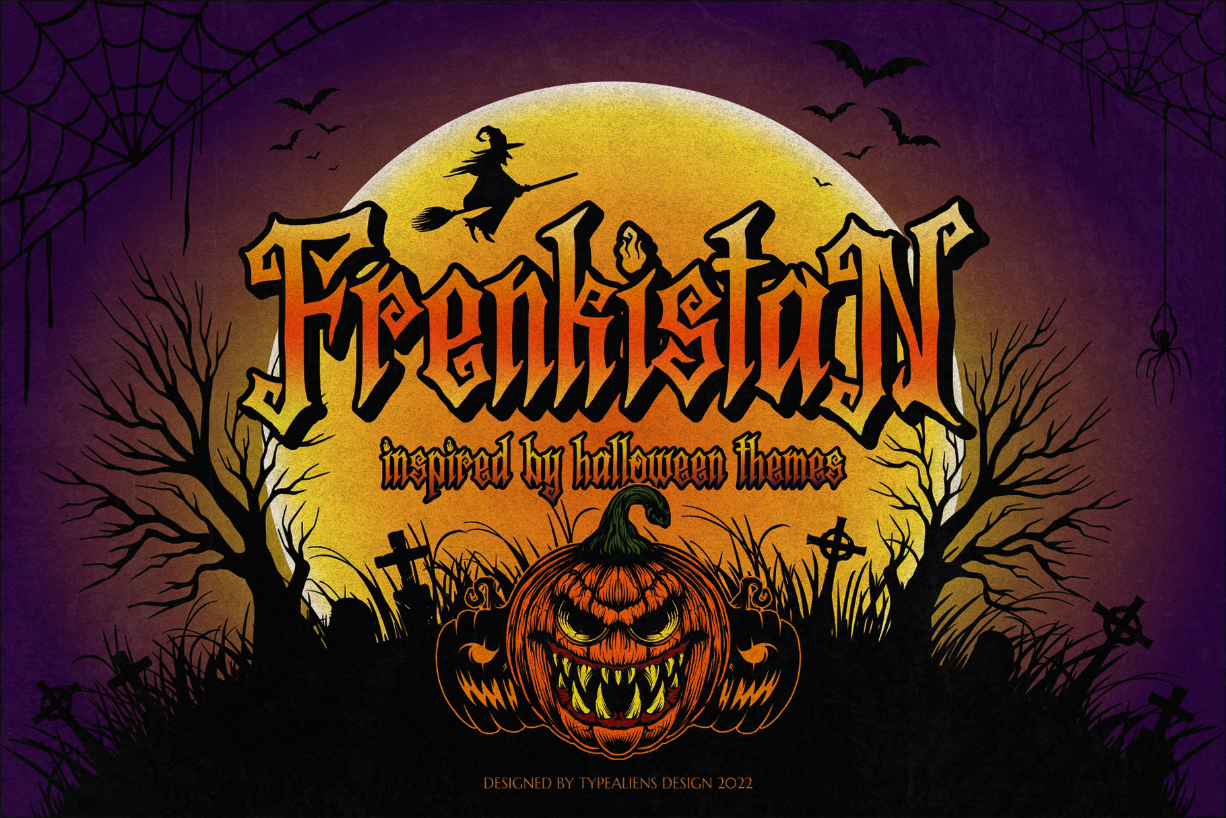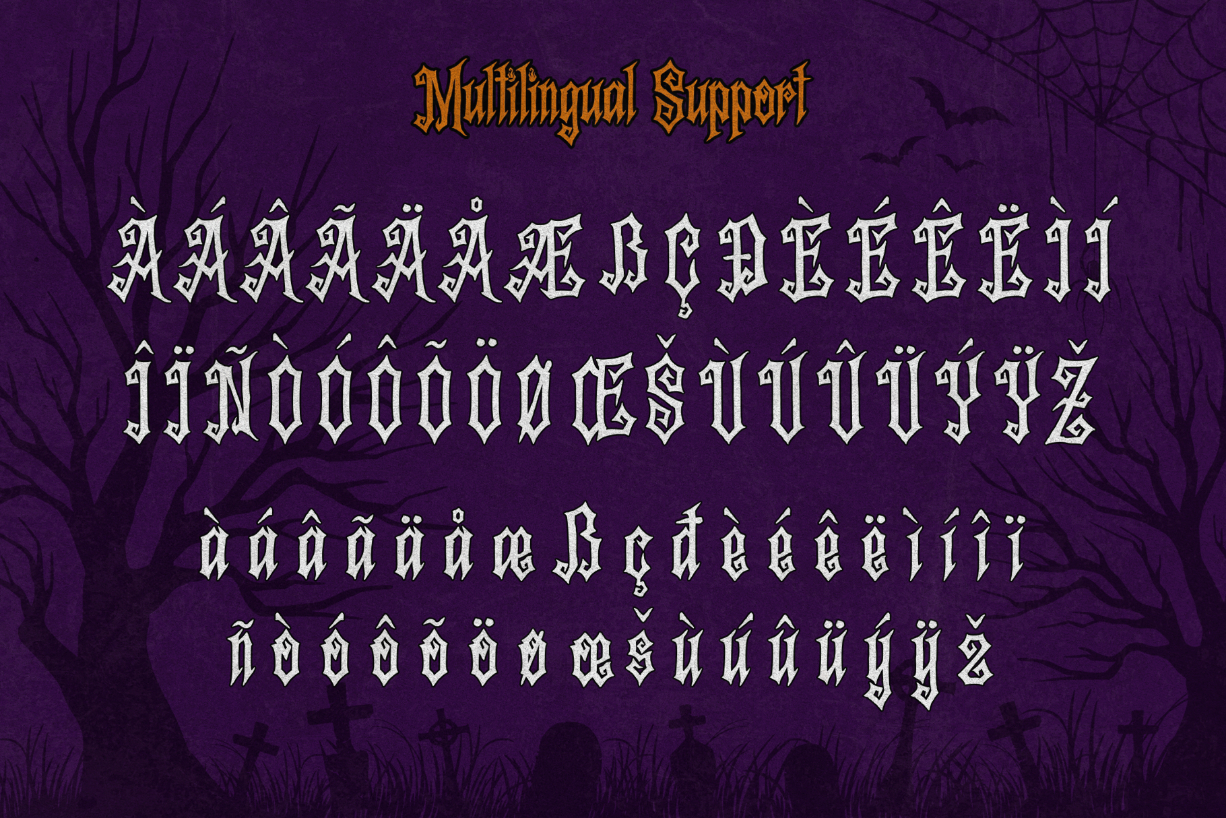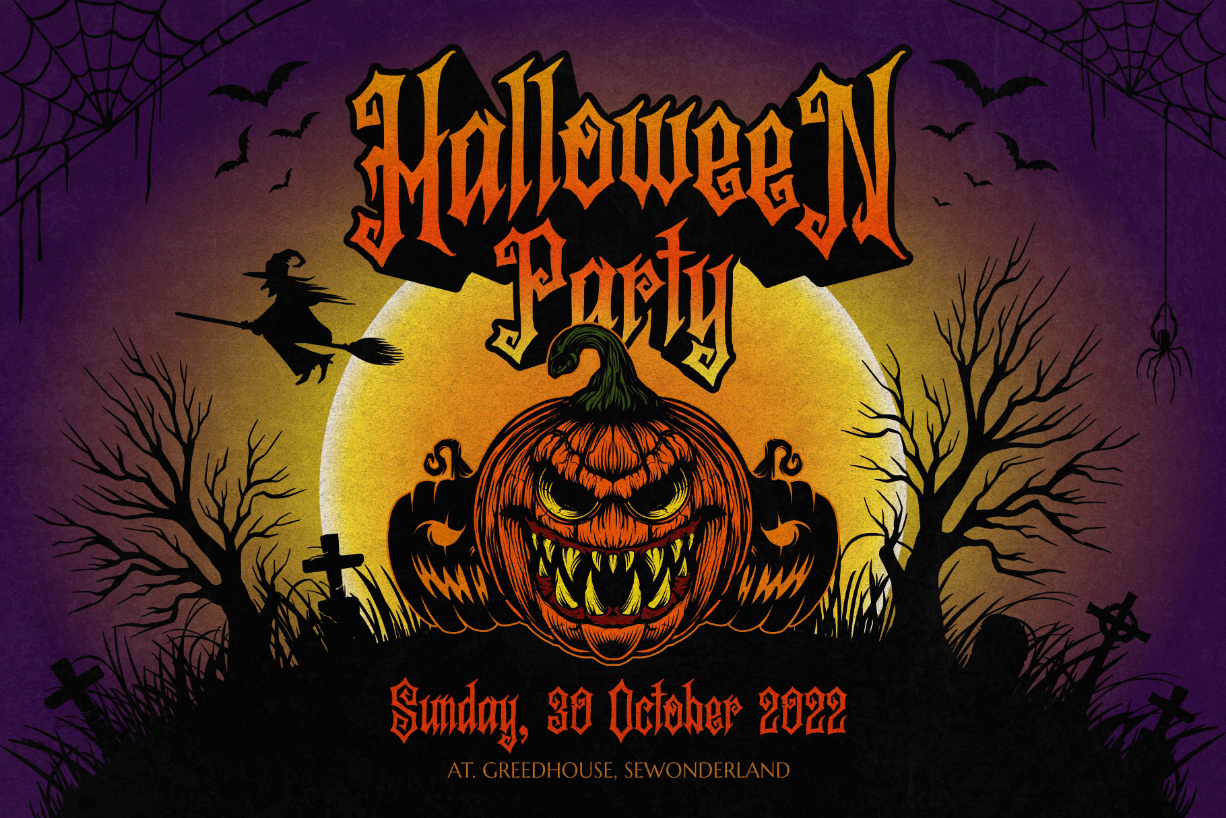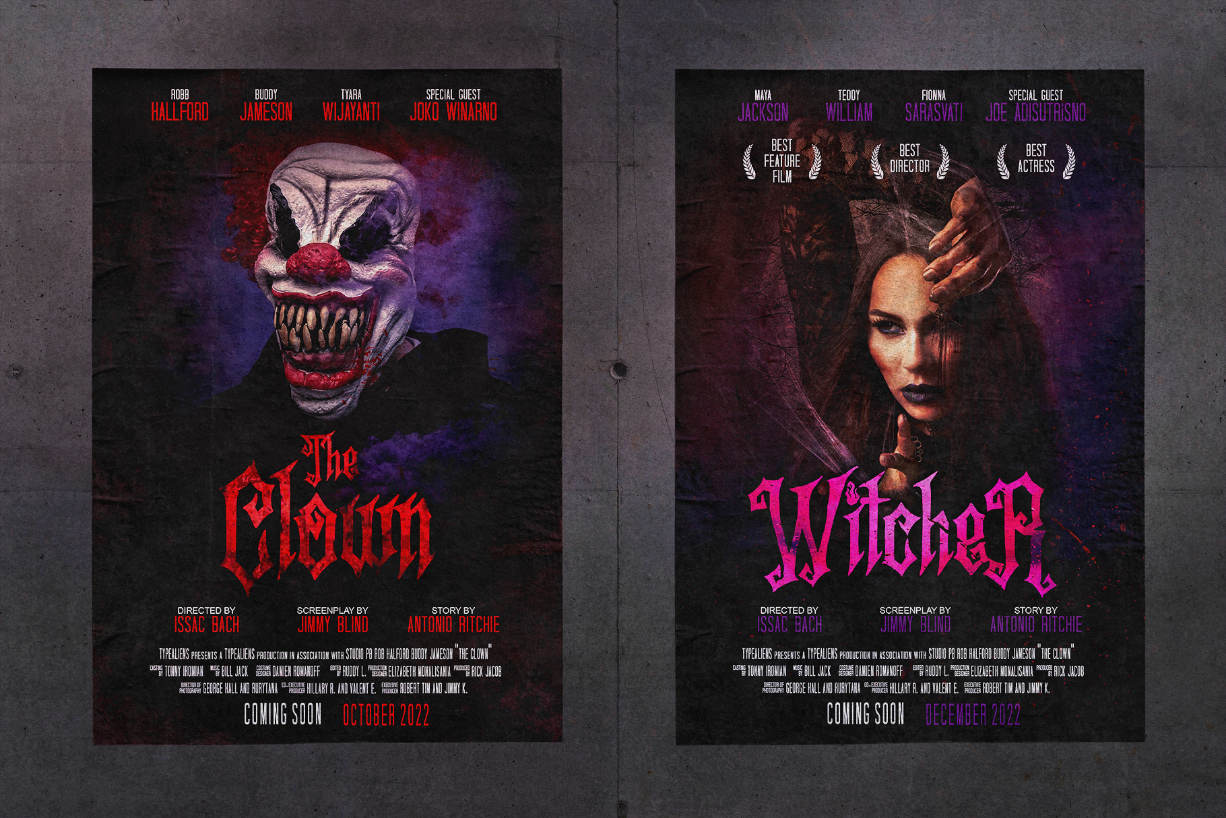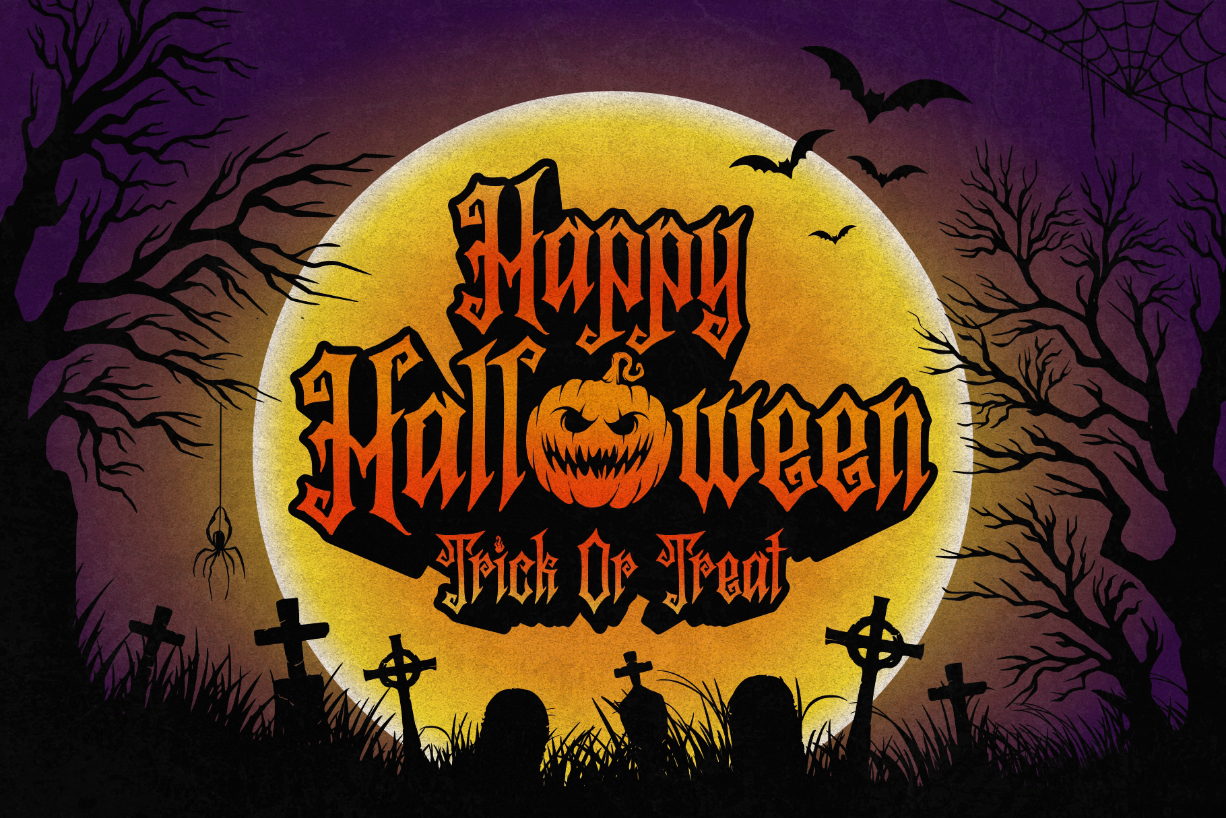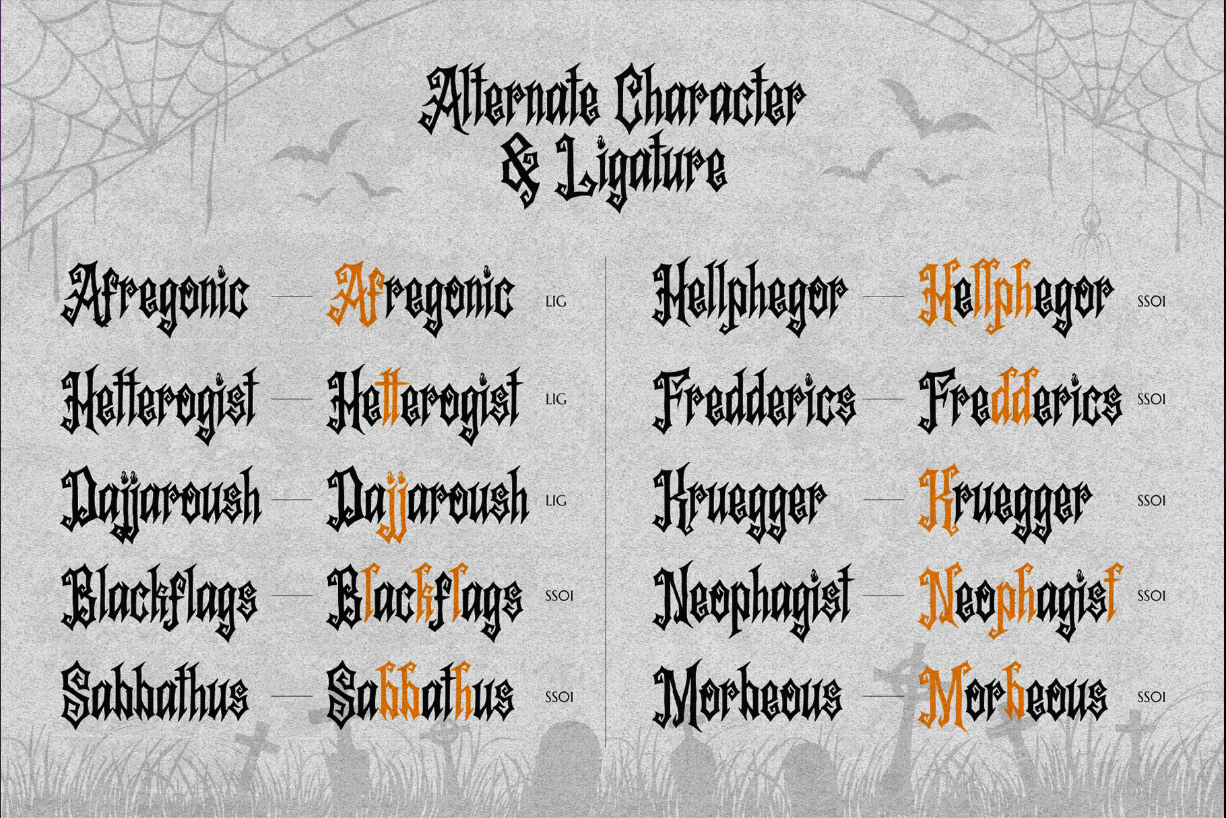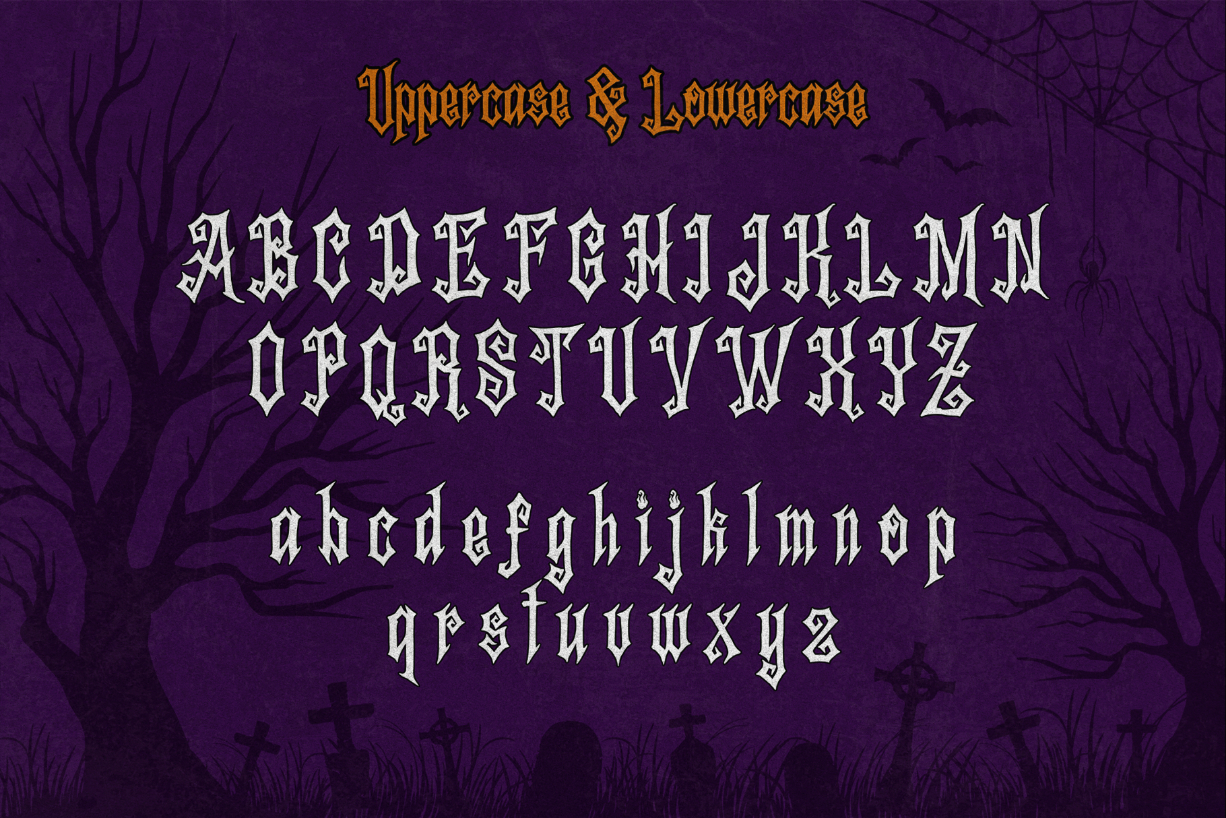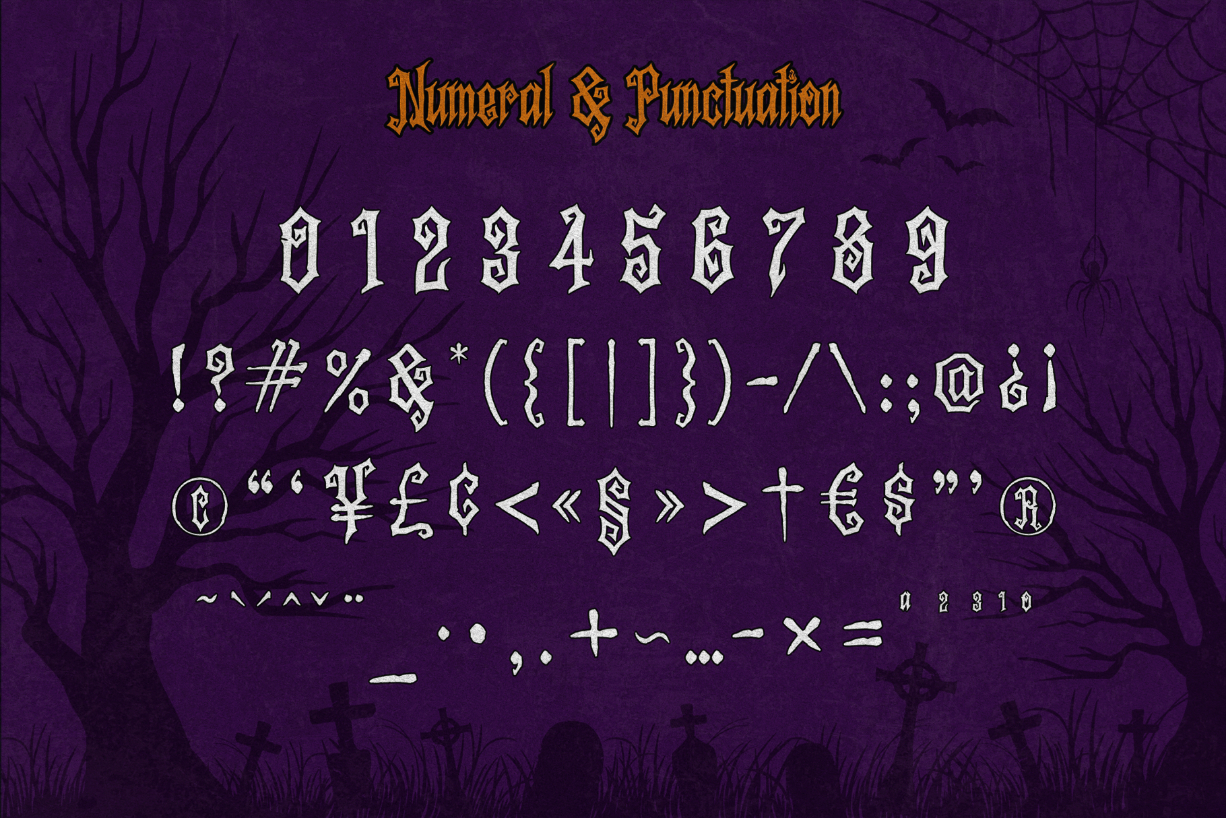
Frenkistan Font
About Frenkistan Font
Frenkinstan is a blackletter font intended for horror themes such as Halloween events, horror movies, and other horror events. With a rough style added to this font, it looks even scarier. Technically it is digital hand lettering, so it adds to the impression that this font is handcrafted, and the vector process does not refine the rough parts so it still has a rough impression.